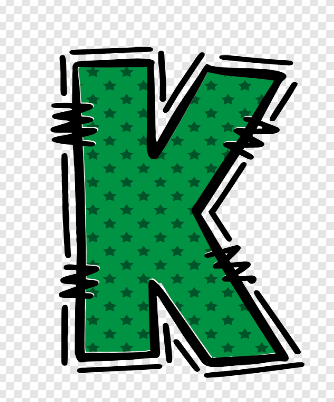
Custom Font Set w/Digital Papers of Your Choice (4 Uppercase Font Sets Included)
Are you looking to save time and have a doodle alphabet created with a digital paper you love? We can quickly do that for you! With your custom order, you will receive up to four complete uppercase alphabet sets of 26 letters each, along with numbers 0-9 and a heart glyph. You provide the four digital papers of your choosing, and we will convert them for you. Also included will be an OTF font for each different pattern which can be installed to type the letters directly in Photoshop. See example letter style in photos.